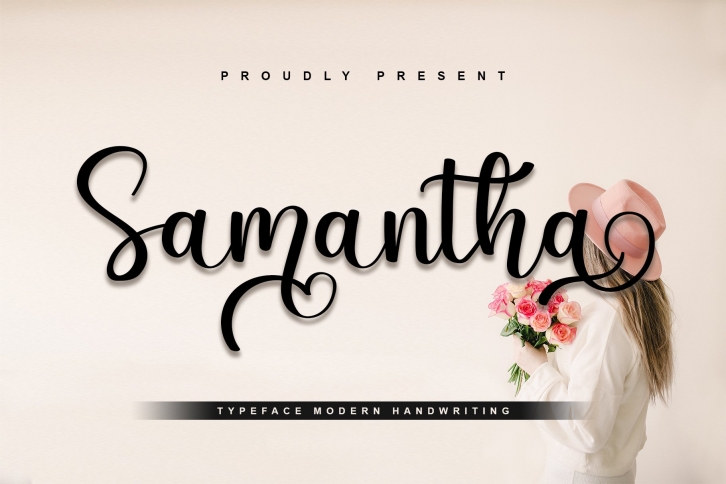
Samantha is a trendy and unique font with an authentic style. It was designed by Yan Studio and it's a great choice for creative people who need such a font. It was released on December 16, 2021 and the file size is 3.87 MB. Samantha will add an organic vibe to any design idea!